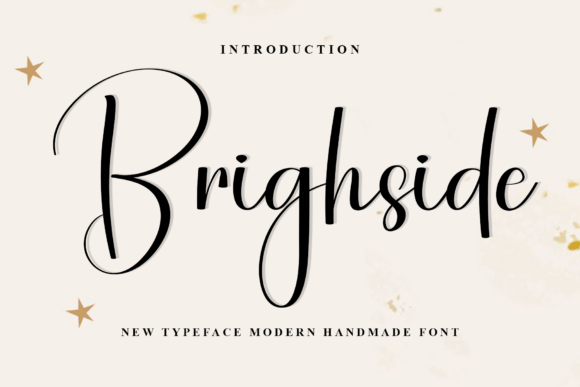
Introducing Brighside Font: The Ultimate Holiday Typeface
The holiday season is upon us, and what better way to get into the spirit than with a festive and merry typeface? Look no further than Brighside Font, a decorative and whimsical font that captures the essence of the holiday season. With its enchanting elements and nostalgic flair, Brighside Font is perfect for adding a touch of magic to your designs.
What Makes Brighside Font Special?
Brighside Font is a unique and captivating typeface that boasts a range of features that make it perfect for holiday-themed projects. Some of its key features include:
- Decorative Elements: Brighside Font is adorned with decorative elements that evoke the spirit of the holiday season. From snowflakes to holly leaves, this font is packed with festive flair.
- Whimsical Flair: This font has a playful and whimsical feel that adds a touch of enchantment to your designs. Perfect for creating a sense of nostalgia and wonder.
10 Ways to Use Brighside Font in Your Designs
Brighside Font is incredibly versatile and can be used in a range of projects. Here are 10 ideas to get you started:
- Greeting Cards: Create festive and personalized greeting cards for friends and family.
- Gift Tags: Add a touch of magic to your gift tags with Brighside Font’s decorative elements.
- Holiday-Themed Projects: Use Brighside Font in holiday-themed projects such as Christmas decorations, Halloween costumes, and more.
- Social Media Graphics: Create eye-catching social media graphics with Brighside Font’s whimsical flair.
- Logos and Branding: Use Brighside Font to create festive logos and branding for your business.
- Invitations: Create festive and personalized invitations for holiday parties and events.
- Posters and Flyers: Use Brighside Font to create eye-catching posters and flyers for holiday events.
- Digital Art: Incorporate Brighside Font into your digital art projects for a touch of holiday cheer.
- Web Design: Use Brighside Font to add a festive touch to your website or blog.
- Print-on-Demand Products: Create festive print-on-demand products such as holiday-themed mugs, t-shirts, and more.
Tips for Using Brighside Font in Your Typography
To get the most out of Brighside Font, here are some typography tips to keep in mind:
- Experiment with Sizes: Play around with different font sizes to create visual interest and hierarchy.
- Mix and Match: Combine Brighside Font with other fonts to create a unique and eye-catching typography style.
- Pay Attention to Spacing: Make sure to leave enough space between lines and letters to create a clean and readable design.
- Use Ligatures: Take advantage of Brighside Font’s ligatures to add a touch of elegance and sophistication to your typography.
The Benefits of Using Brighside Font
So why choose Brighside Font for your holiday designs? Here are just a few benefits:
- Unique and Eye-Catching: Brighside Font is a one-of-a-kind typeface that will make your designs stand out.
- Festive and Merry: This font captures the spirit of the holiday season, making it perfect for creating festive and merry designs.
- Versatile: Brighside Font can be used in a range of projects, from greeting cards to social media graphics.
Brighside Font is the perfect addition to any holiday design project. With its decorative elements, whimsical flair, and PUA encoding, this font is sure to bring a touch of magic to your typography. Whether you’re creating greeting cards, gift tags, or holiday-themed projects, Brighside Font is the ultimate holiday typeface.